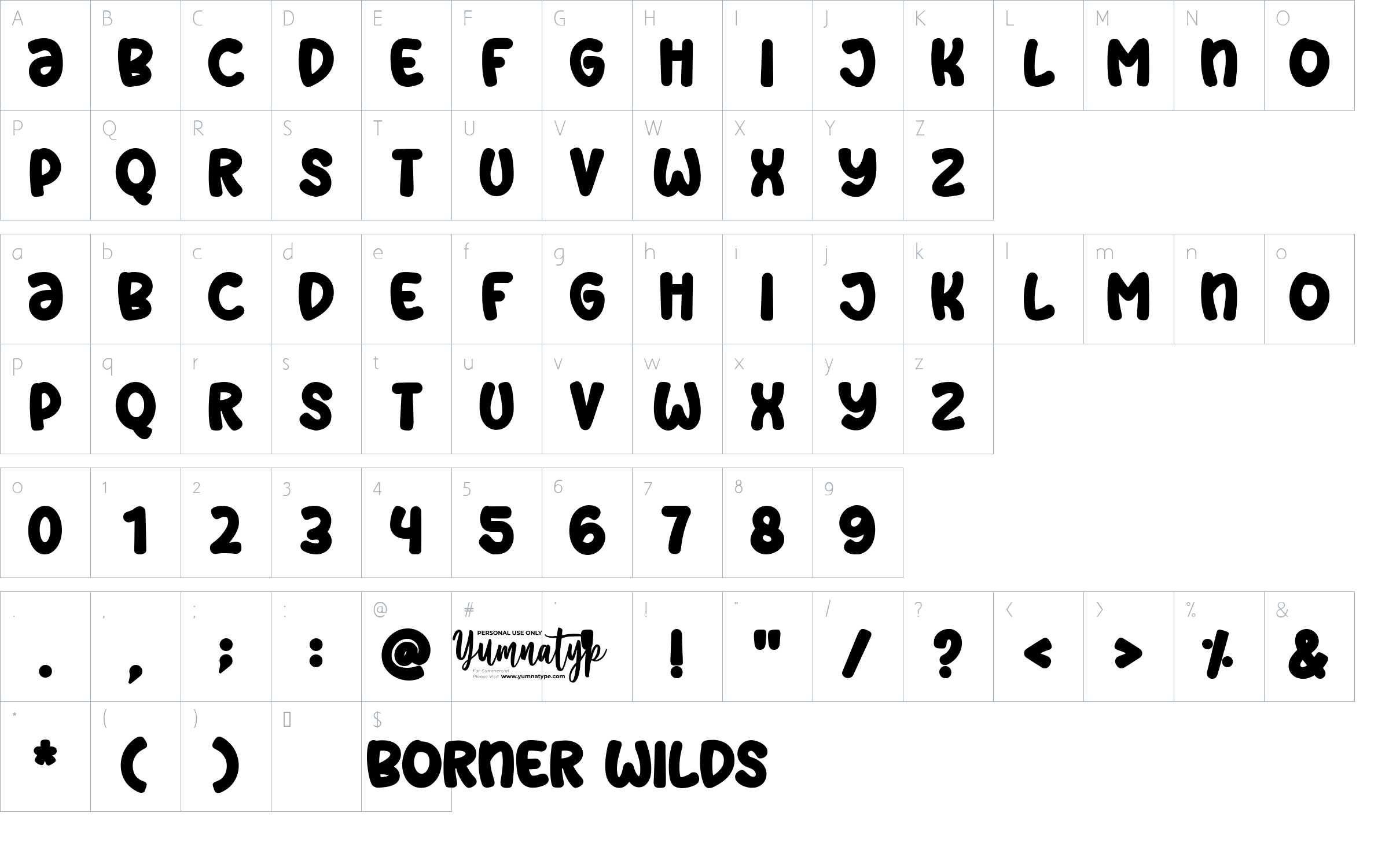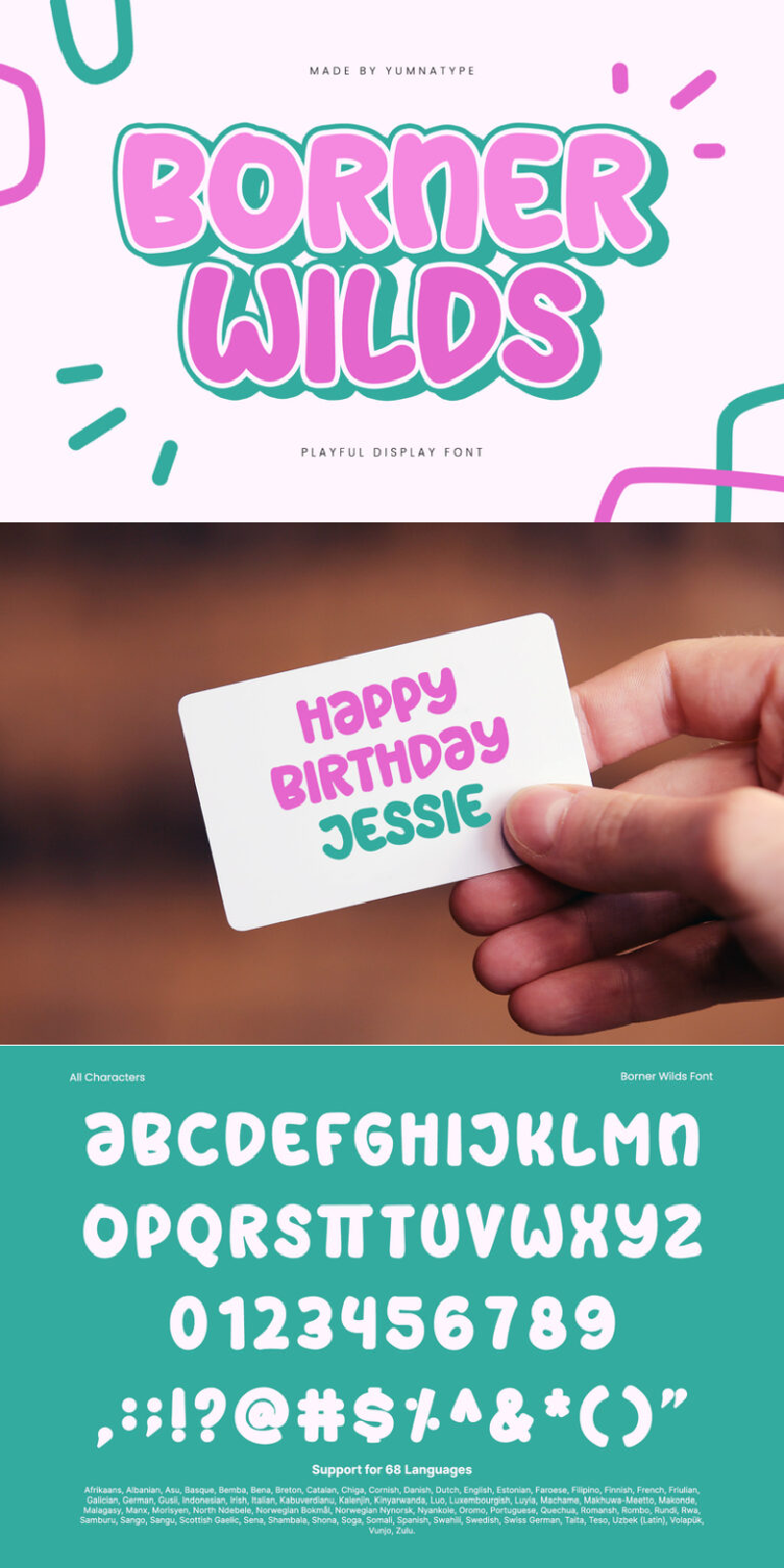
Borner Wilds Font
About Borner Wilds
Borner Wilds is a lively display font that combines playful charm with bold, all-caps lettering. Crafted with a bold weight and very low contrast, this font exudes a confident and energetic vibe. The constant letter proportions ensure a cohesive and balanced appearance, making Borner Wilds an excellent choice for eye-catching headlines, dynamic posters, and vibrant branding. In addition, enjoy the features here.
Borner Wilds fits in headlines, logos, posters, flyers, branding materials, print media, editorial layouts, and many more designs. Find out more ways to use this font by taking a look at the font preview.